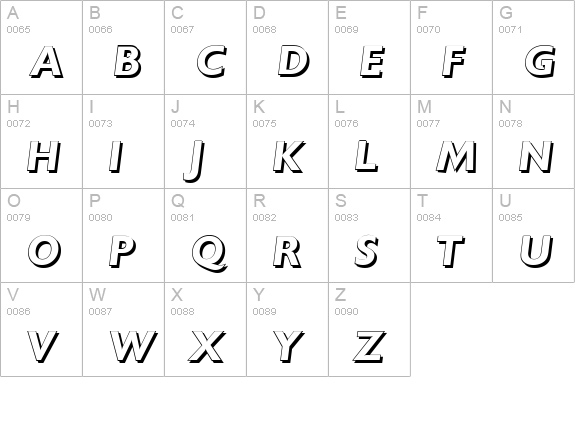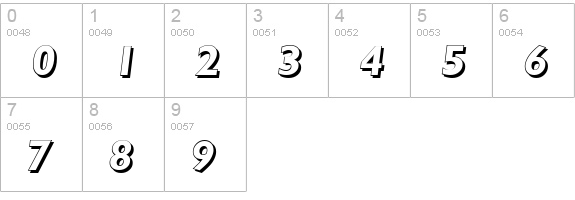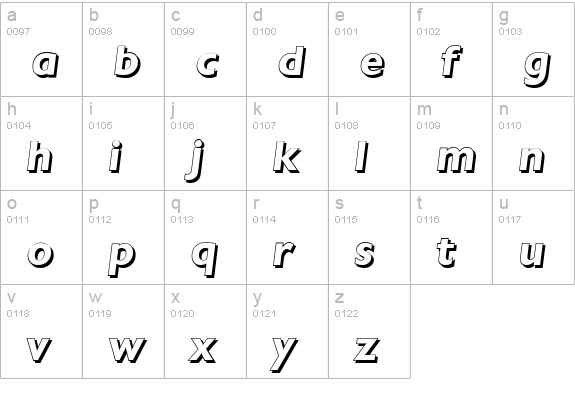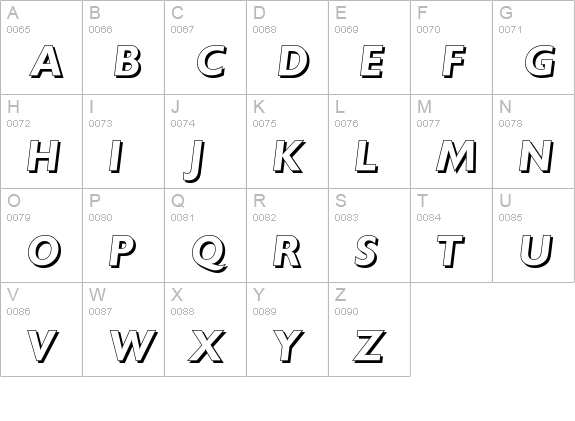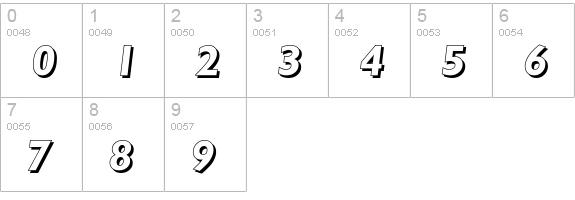
ChantillyShadow-BoldItalic Font Details
ChantillyShadow-BoldItalic font exudes elegance and sophistication with its bold yet flowing design. The italicized style adds a touch of grace to any project, making it perfect for headings, titles, and other prominent text elements. Its unique blend of sharp edges and smooth curves creates a striking visual impact that is sure to captivate your audience. What sets ChantillyShadow-BoldItalic font apart is not just its stunning appearance, but also its accessibility. This premium font is available for free download at FontsMarket.com, allowing you to elevate your designs without breaking the bank. Whether you're working on a branding project, editorial design, or any other creative endeavor, ChantillyShadow-BoldItalic font is a versatile and reliable choice that will help you stand out from the crowd. Don't miss out on this opportunity to enhance your typographic arsenal with a high-quality font that is both stylish and cost-effective. Download ChantillyShadow-BoldItalic font today and unleash your creativity in ways you never thought possible.